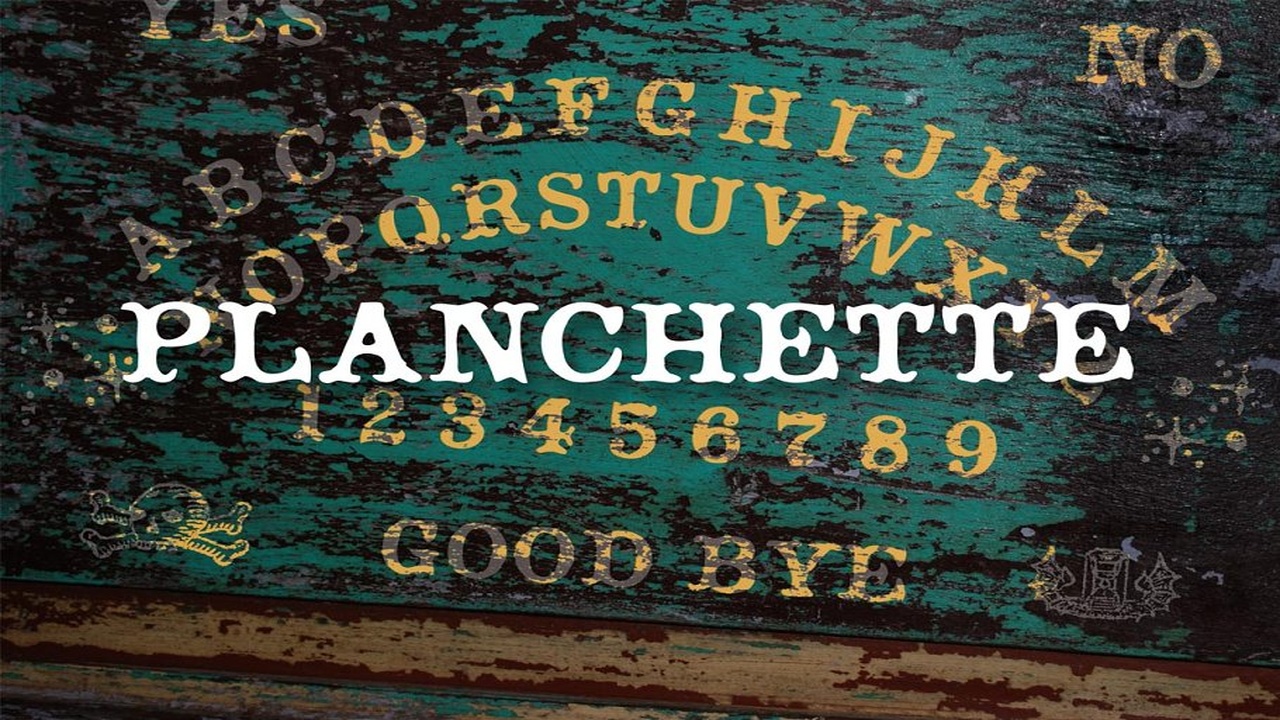
About the Planchette Font
Based on a 19th century Toscanienne typeface, Planchette has two hand ornaments accessible by the and keys, Purchase and use of this product is subject to terms of the Aerotype Software License Agreement http://www, aerotype, com/license, ht